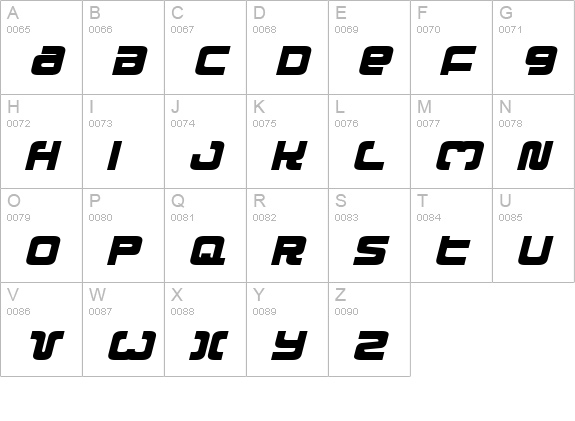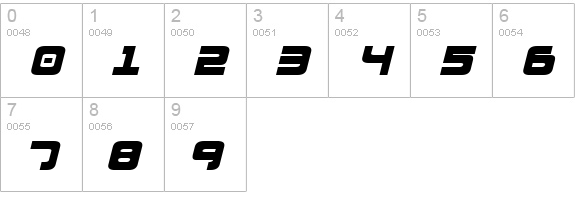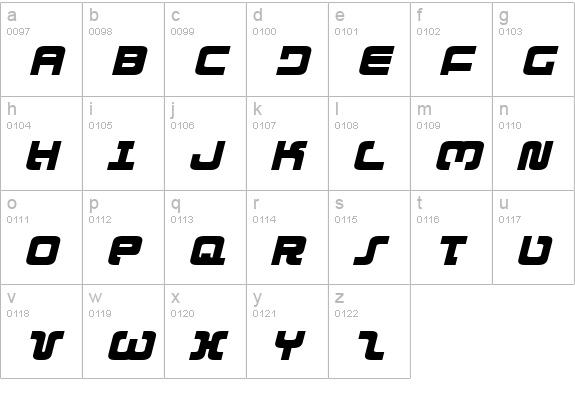
Exedore Italic is a distinctive, italic variant in the Exedore typeface family \xE2\x80\x94 well suited to design and typography projects.
Exedore Italic font exudes elegance and sophistication with its sleek and slanted design. The stylish italicized characters add a touch of modernity to any project, making it perfect for branding, editorial design, and digital content creation. The Exedore Italic font strikes the perfect balance between professionalism and creativity, making it a versatile choice for a wide range of design applications. Best of all, Exedore Italic font is available for free download at FontsMarket.com. This means you can easily access this premium font without any cost, making it a valuable addition to your font collection. Don't miss out on the opportunity to enhance your designs with the timeless charm of Exedore Italic font - download it today and elevate your creative projects to new heights.